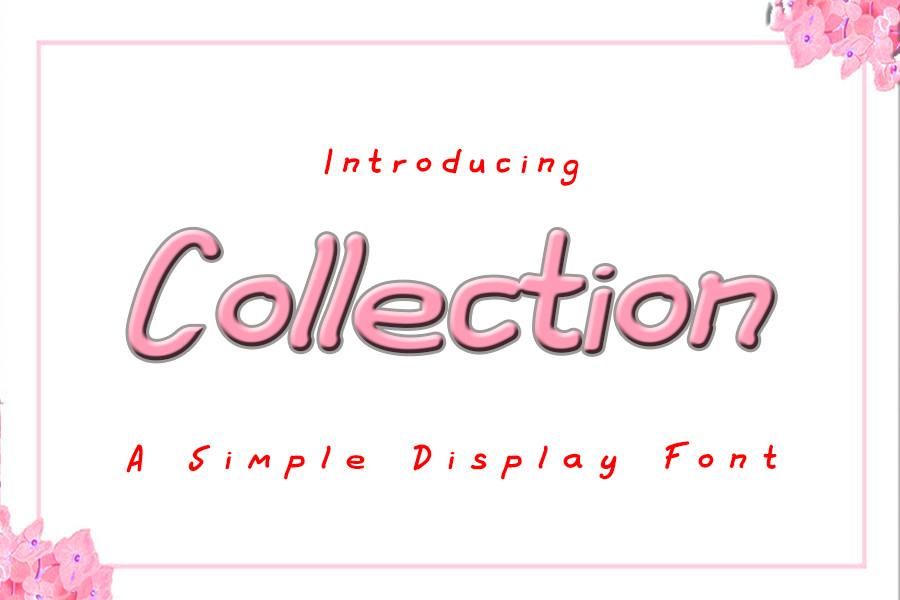
Collection Font Description
Collection is a unique and cute display font. Whether you are using it for cartoon-related designs, children’s games, quotes, titles, brand names, book covers, posters, or just any creation that requires a touch of beauty, this font is a great choice.